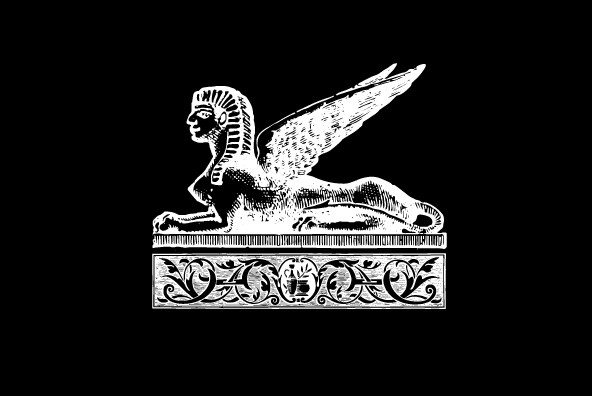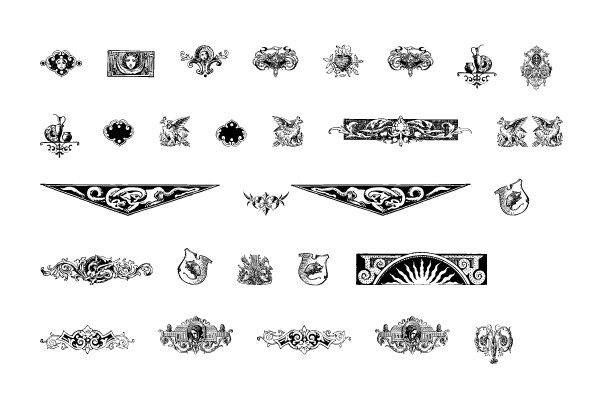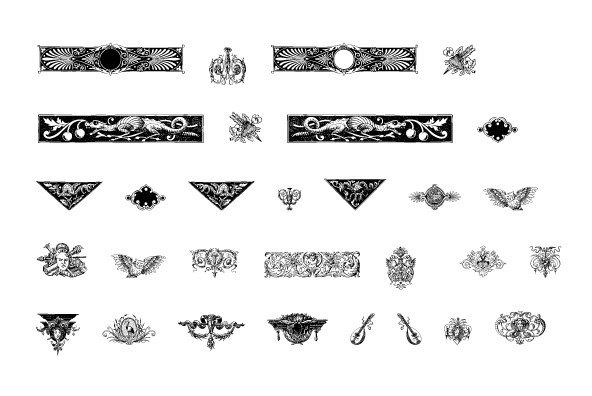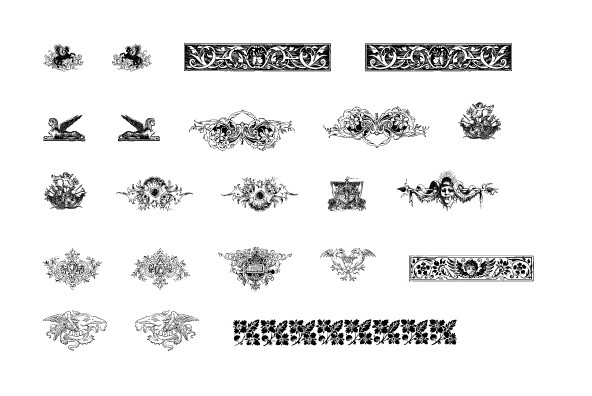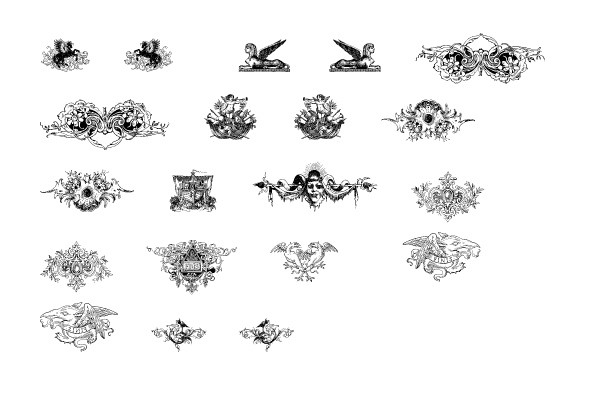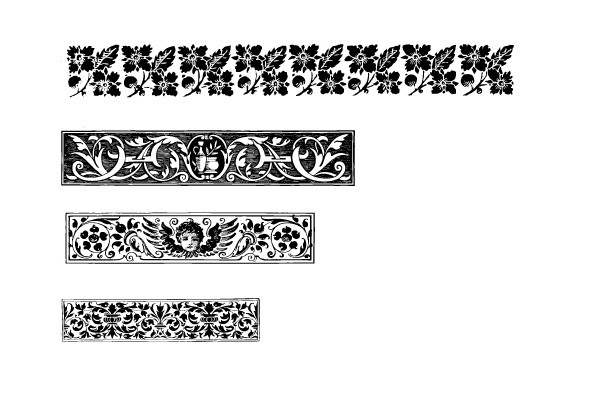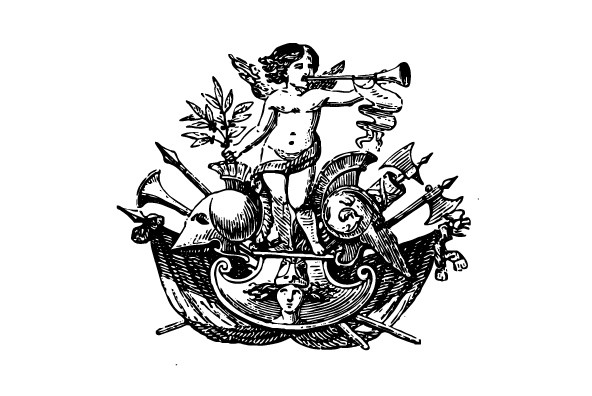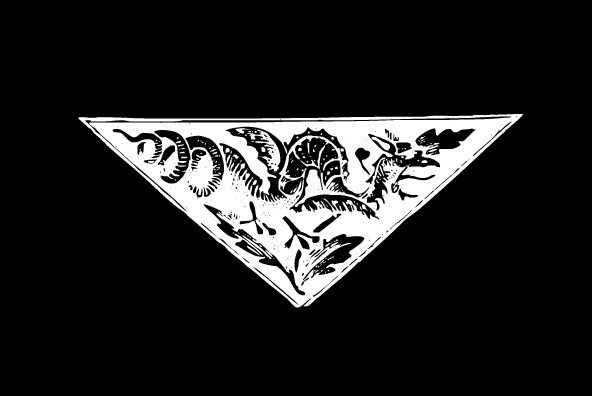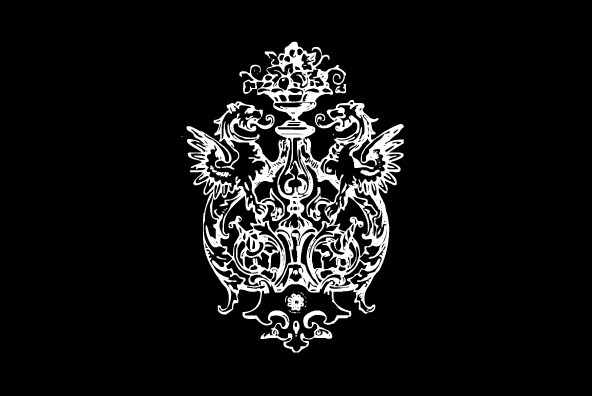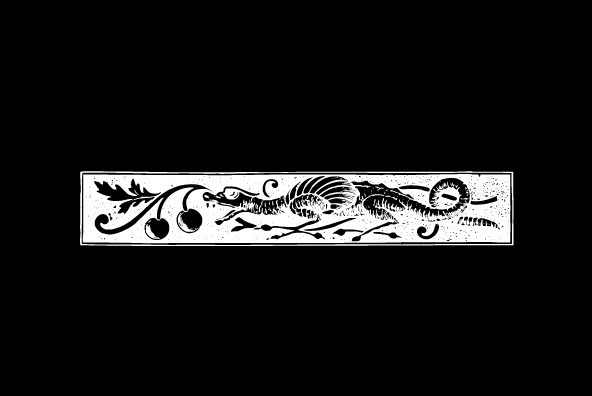
Renaissance Ornaments
A decorative dingbat font of many flourish and border items in a Renaissance themed style. Contains two fonts, Renaissance Ornaments 1 and Renaissance Ornaments 2.